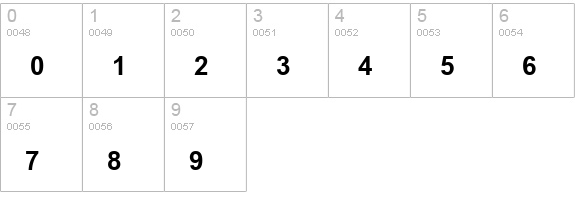
Browallia New Bold is a strong, high-contrast variant in the Browallia typeface family \xE2\x80\x94 well suited to headlines, attention-grabbing titles, and strong calls-to-action.